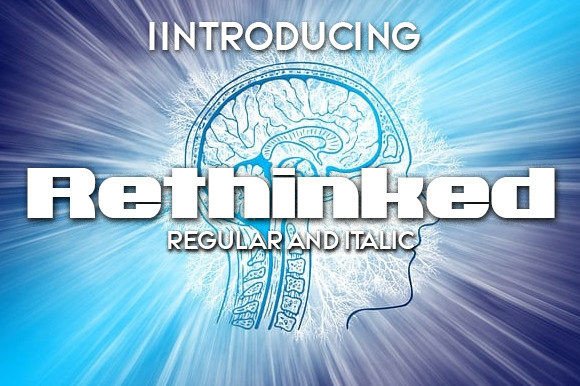
Rethinked: A Bold Display Font for Scroll-Stopping Marketing
As a marketing specialist who lives in Canva, Figma, and Adobe Creative Cloud, I don’t just pick fonts—I deploy them. Every headline, thumbnail, and banner is a micro-moment of audience attention. That’s why Rethinked stands out: it’s not another “trendy” sans serif—it’s a purpose-built display font engineered for impact at first glance. With its confident letterforms, generous x-height, and subtle geometric tension, Rethinked balances modernity with clarity—making it ideal for marketers who need to communicate fast, stand out loud, and stay on-brand across every digital touchpoint.
Rethinked thrives where attention is scarce and speed is non-negotiable. On Instagram feeds, where users scroll in under two seconds, its strong vertical stress and open counters ensure legibility even at small sizes—especially in Reels covers or story text overlays. For YouTube thumbnails, Rethinked delivers high contrast and visual weight without sacrificing readability on mobile previews. Its clean, uncluttered shapes render crisply on low-resolution banners and email headers, avoiding the fuzzy edges that plague overly stylized typefaces. Unlike decorative script or condensed sans fonts, Rethinked doesn’t ask your audience to squint or decode—it declares, then delivers.
This display font shines brightest in short-form, high-intent contexts: sale announcements (“48-HOUR FLASH SALE”), product teasers (“Coming Soon. Seriously.”), inspirational quote graphics (“Your mindset shifts everything”), and webinar banners (“Master Your Metrics—Live Q&A”). It also anchors branded content series—think weekly newsletter headers, podcast cover art, or a cohesive set of Pinterest pins for a seasonal campaign. Because Rethinked is inherently bold but not aggressive, it supports both energetic launches (e.g., a limited-edition drop) and thoughtful positioning (e.g., a values-driven brand manifesto).
Visual hierarchy isn’t theoretical—it’s tactical. With Rethinked, you gain immediate control over emphasis. Use it for primary headlines only, and pair it intentionally: a neutral sans serif like Inter or Poppins for body copy keeps messaging scannable and accessible; a refined serif like Playfair Display adds editorial gravitas for blog headers or landing page subheads. Avoid pairing Rethinked with other bold display fonts—that dilutes focus. Instead, lean into contrast: strong + simple, expressive + functional. That balance strengthens brand recognition by making your typography instantly identifiable yet consistently usable.
For small business teams and solopreneurs building their own templates, Rethinked scales intelligently. It works as a logo mark in simplified lockups (e.g., stacked initials or monogram treatments), functions as a dynamic accent in animated social ads, and holds up beautifully on merchandise—yes, including t-shirts and tote bags—where its sturdy proportions prevent ink bleed and maintain integrity in screen printing. Just remember: always verify the commercial license before using Rethinked in client deliverables, paid ads, digital products, or physical goods. Licensing ensures legal compliance and protects your brand—and your clients—from unintended exposure.
Readability on mobile isn’t optional—it’s foundational. Rethinked’s generous spacing and balanced stroke contrast mean it performs well even in 24px–32px ranges on smartphone screens. But avoid setting full paragraphs in it. Reserve Rethinked for headlines, callouts, and short hero text. Let supporting fonts handle the narrative lift. This discipline keeps your visuals sharp, your message clear, and your engagement metrics climbing—not because you’re louder, but because you’re clearer.
In practice, here’s how it plays out: A fitness coach uses Rethinked for a “30-Day Reset Challenge” Instagram carousel header—bold enough to stop thumbs, clean enough to convey professionalism. A boutique skincare brand deploys it across Pinterest pins announcing a new serum launch—paired with soft sans captions for warmth and approachability. An e-commerce store drops a limited-time promo banner featuring Rethinked in all-caps (“FREE SHIPPING. NO CODE NEEDED.”)—the weight signals urgency without shouting. Each use leverages the same core strength: Rethinked makes your message impossible to ignore—and easy to understand.
That duality—impact + clarity—is rare in modern display fonts. Many prioritize personality over practicality. Rethinked refuses that trade-off. It’s built for real-world marketing workflows: drag-and-drop editors, cross-platform exports, fast-turn creative sprints, and consistent reuse across brand assets. Whether you’re designing a landing page CTA, a digital ad set for Meta, a branded Notion template, or a Shopify banner, Rethinked gives your words structural confidence.
Typography isn’t decoration—it’s strategy in disguise. Every font choice sends silent signals about credibility, energy, and intention. Rethinked communicates forward motion, decisiveness, and modern polish—without leaning into sterile minimalism or chaotic novelty. That makes it especially effective for personal branding, startup launches, and campaigns built around transformation, innovation, or action. When your audience sees Rethinked, they don’t just read your message—they register your stance.
If you're evaluating display fonts for your next campaign, ask yourself: Does it hold up at thumbnail size? Does it pair cleanly with my existing brand fonts? Does it reinforce—not distract from—my core message? Rethinked answers yes to all three. It’s not just another premium font in your library. It’s a reliable, versatile, and visually grounded tool—one that earns its place in your most visible, highest-stakes creative assets.